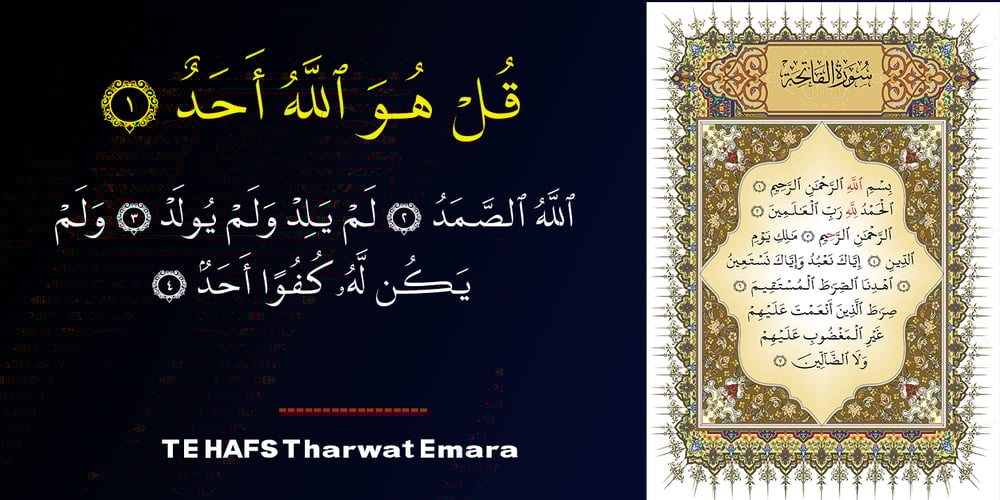
TE Hafs Font Family was designed by Tharwat Mohamed Emara and published by Tharwat Emara. TE Hafs contains 4 styles and family package options. It is known as the Hafs Quraan Font for its extensive use in the copying and transmission of books because it helps the writer to write more quickly than any other font since the Islamic times and then Alnaskh Quraan font wrote the “Quran”And the advantages of Alnaskh Quraan font are clarifying the letters and show their beauty and splendor. Naskh Font for writing the Holy Qur’an by Raweya Hafs, for the first time, the possibility of coloring all its letters to learn Tajweed